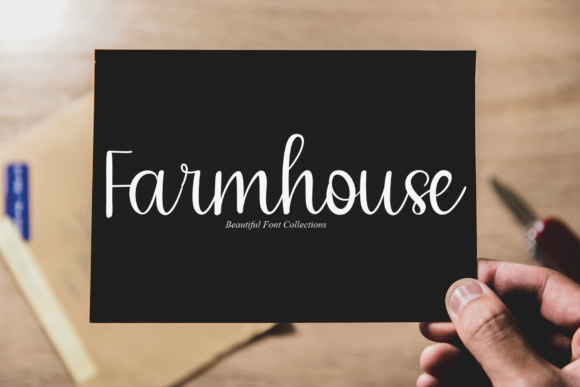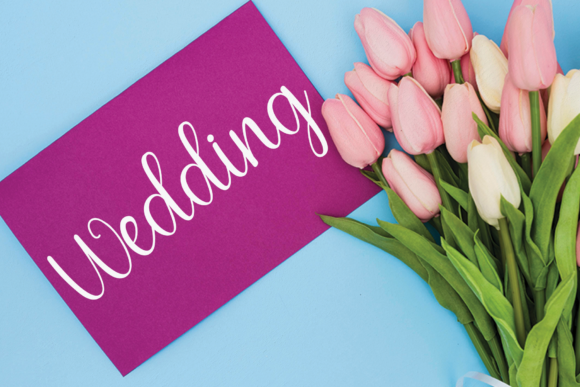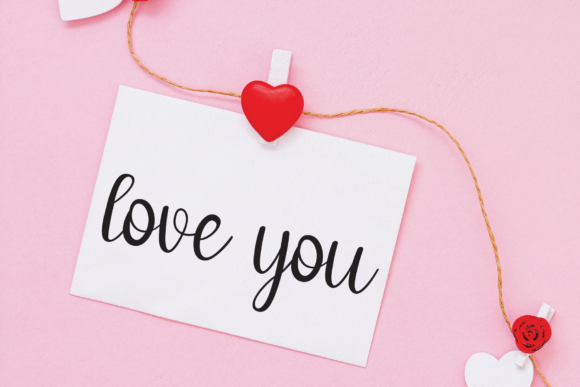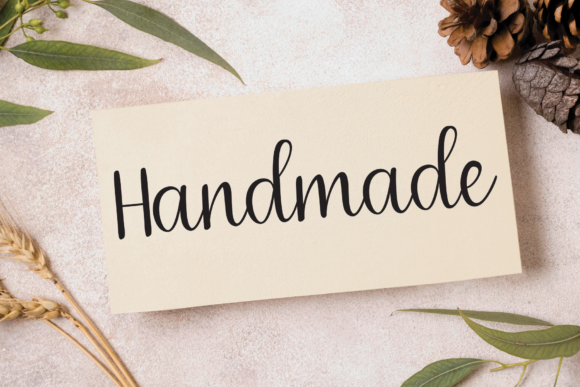
The Birth of a Creative Crush: Introducing the Avocado Font
There’s something magical about stumbling upon the perfect font for a project. You know, that moment when the words just start flowing and your design begins to take shape. It’s a feeling of pure excitement, like discovering a hidden treasure that makes all your hard work worth it. For designers, this feeling is all too familiar, and it’s what makes our job so rewarding.
Enter the Avocado Font, a sweet handwritten font that’s been carefully crafted to bring a touch of warmth and personality to your designs. Whether you’re creating labels, packaging, or social media graphics, this font is sure to add a unique touch that sets your products apart. Its versatility and charm make it a valuable asset for designers, and its ease of use makes it a breeze to incorporate into your projects.
With the Avocado Font, you can elevate your designs and take your creativity to the next level. Its beauty lies in its simplicity, making it the perfect choice for a wide range of applications. So why settle for a generic font when you can make a statement with the Avocado Font?
Avocado Font Key Features
- Unique Characteristics: Avocado Font features a unique blend of modern and vintage elements, with subtle texture and imperfections that give it a distinctive, handcrafted feel.
Avocado Font Review
First off, I want to say that I’m a big fan of Avocado Font. ✨ It’s got a unique, modern feel that I think would be perfect for branding and packaging design. The curves and lines are so smooth and rounded, it’s almost like you’re looking at a real avocado (minus the, you know, squishy part). The font is highly customizable, and it comes in a range of weights and styles that will make it easy to use across different platforms.
My only real criticism of Avocado Font is that it’s a bit too… generic. ⚠️ I mean, while it’s great for packaging and branding, I’m not sure it would stand out in a crowded design market. The font is also a bit too rounded, which can make it hard to read at smaller sizes.
All in all, I think Avocado Font is a solid choice for designers. It’s versatile, customizable, and easy to use. While it may not be the most unique font out there, it’s a great option for anyone looking for a modern, professional feel.
Key Features
- Unique, modern design
- Highly customizable
- Supports a wide range of languages
- Fully scalable
- Available in a range of weights and styles
Avocado Font Practical Application Guide
The Avocado Font is a great choice for food and lifestyle brands, as it has a fun and playful vibe. It’s also perfect for creating eye-catching headings and titles. Some common use cases include:
- Food blogs and recipes